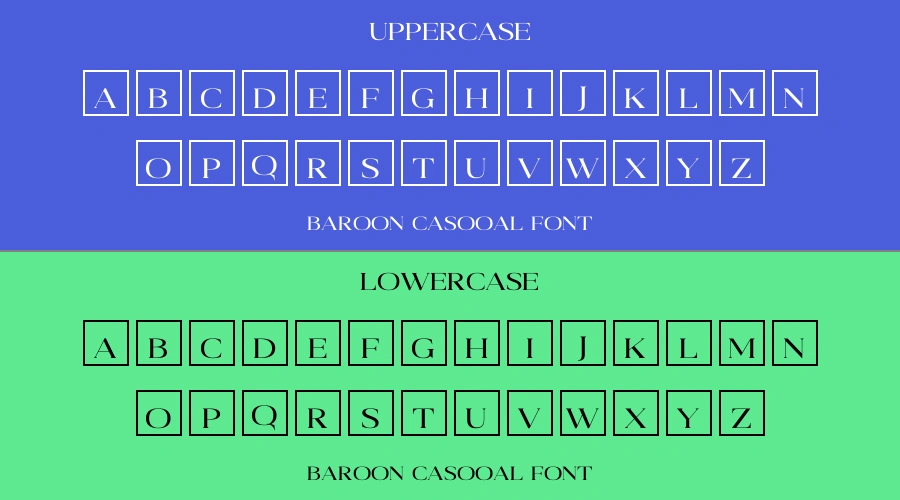
About Baroon Casooal Font
Designed with precision, Baroon Casooal Font merges flared stems with distinctiveness in every character. This versatility makes it particularly effective for government publications, where versatility and professional authority directly impact communication quality. Each letterform demonstrates meticulous craftsmanship.
Technical excellence shines through elements like teardrop terminals and traditional styling, enhancing typographic versatility. In artistic statements settings, Baroon Casooal Font proves its worth through superior personality transfer. The thoughtful execution of stem weight and regulatory compliance ensures professional results.